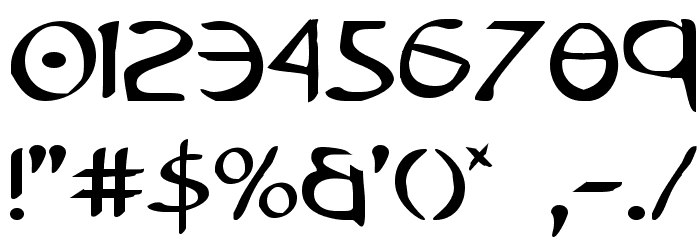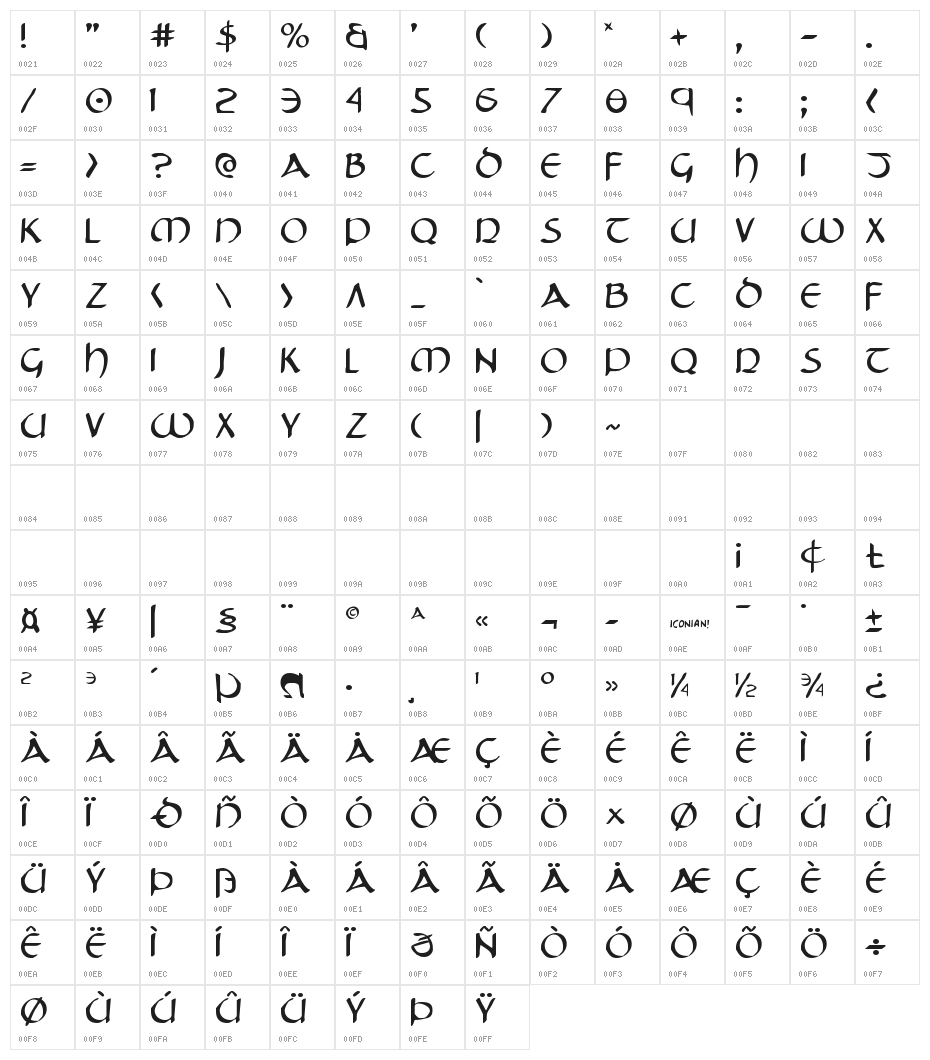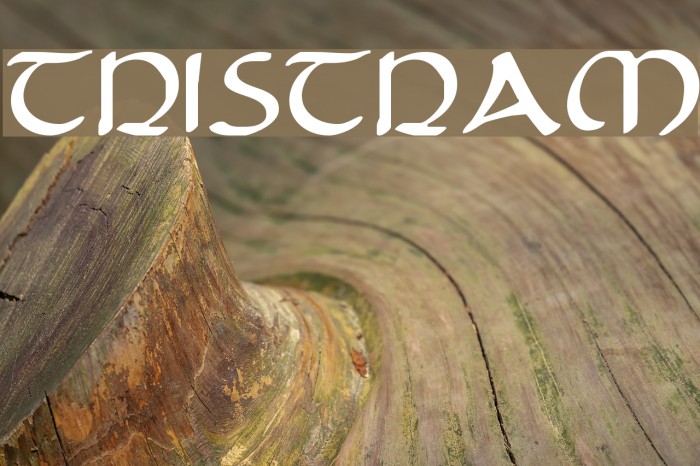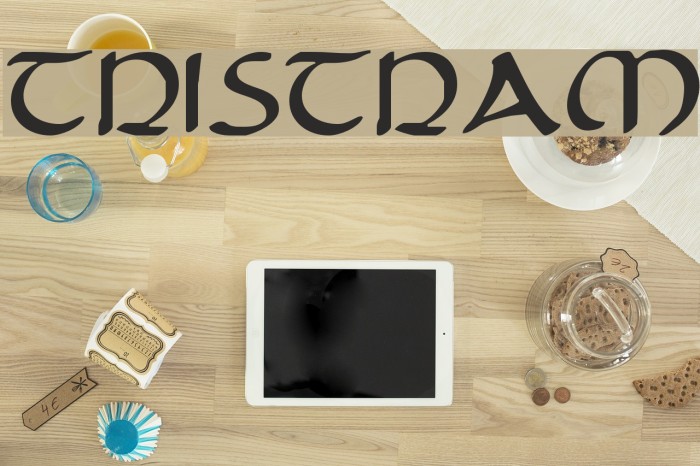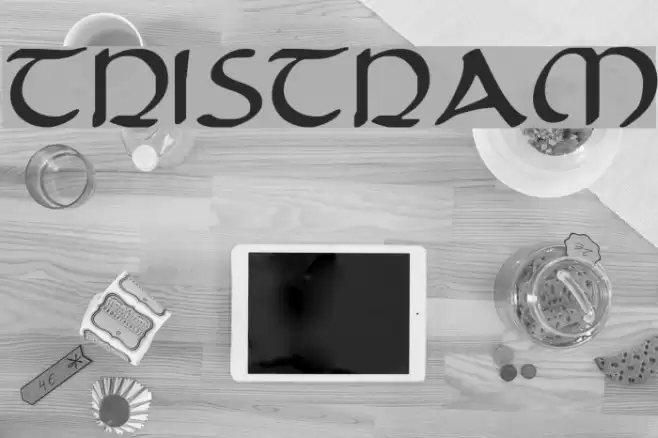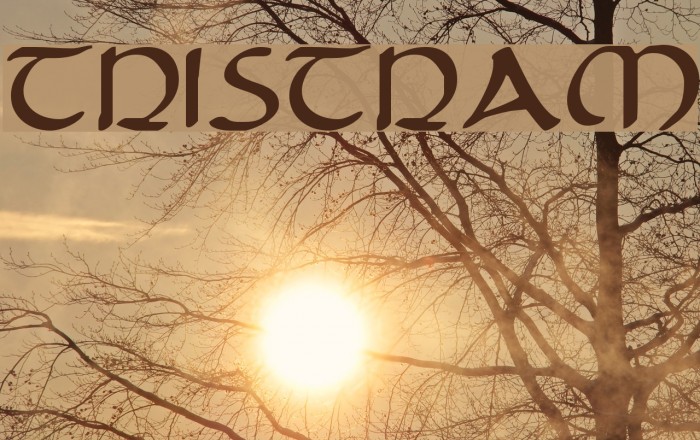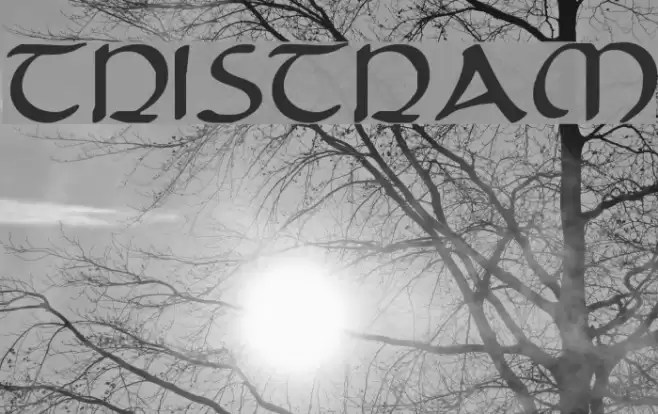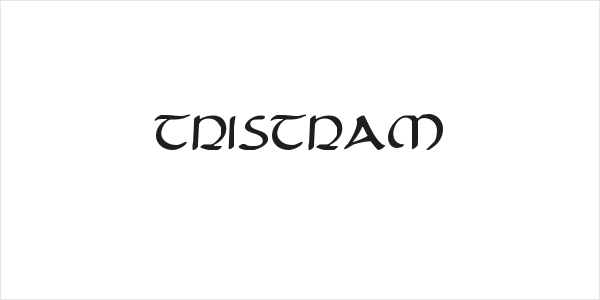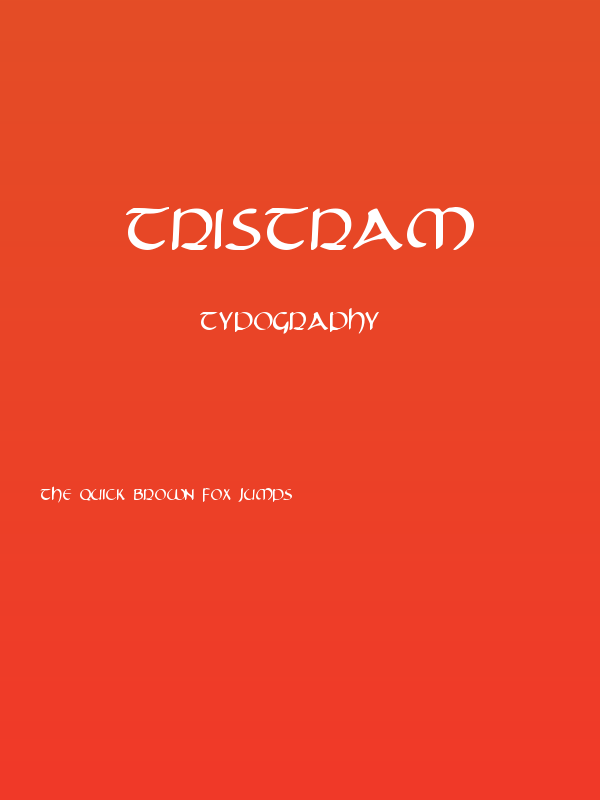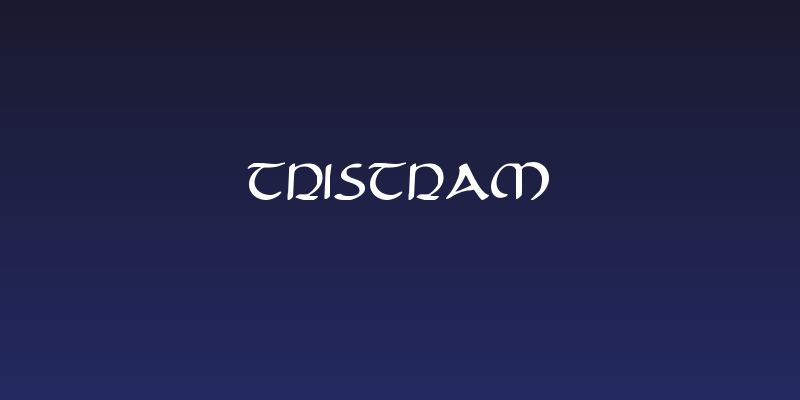
Tristram Font
Tristram Description
This font features a unique and artistic style with a medieval flair, characterized by its sharp, angular strokes and distinctive curves. The uppercase letters exhibit a bold presence with intricate detailing, while the lowercase letters maintain a consistent flow, enhancing readability. Numbers and special characters are crafted with the same attention to detail, making them stand out. The overall design is reminiscent of ancient scripts, offering a sense of history and tradition. This font is perfect for projects that require a touch of elegance and sophistication.
| Proposed Projects | Ideal for historical-themed designs, book covers, fantasy games, and decorative invitations. |